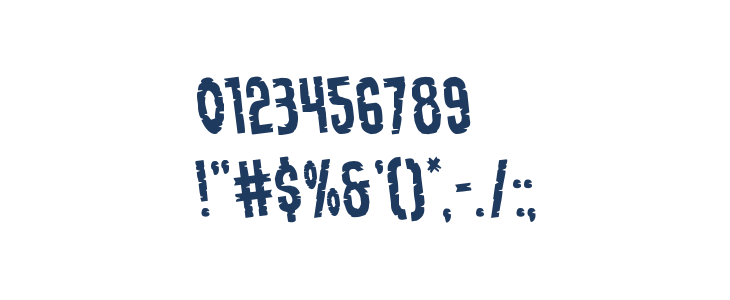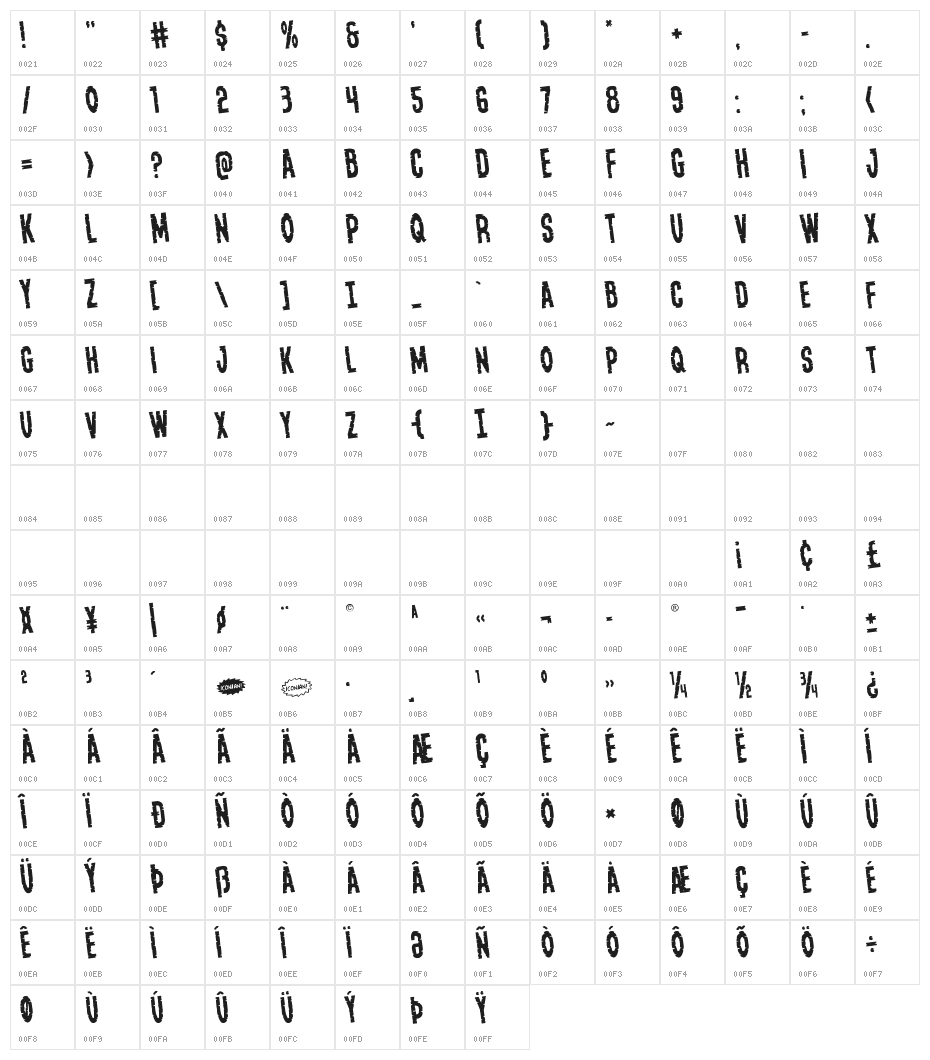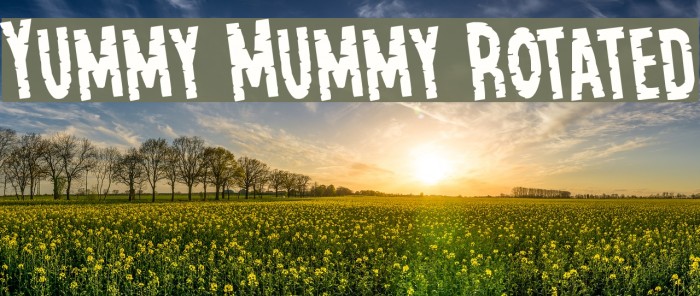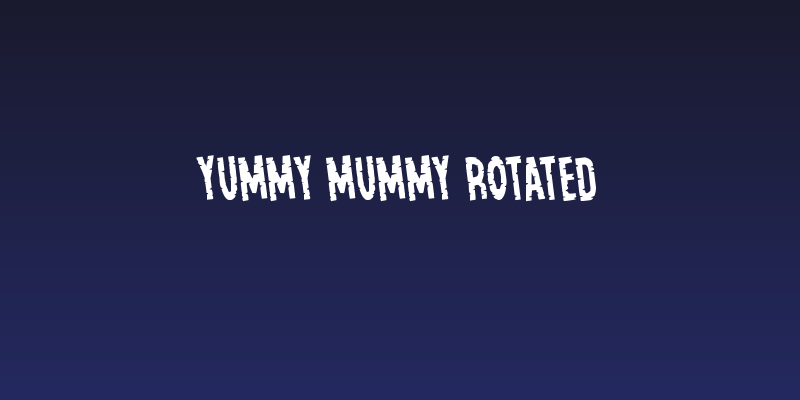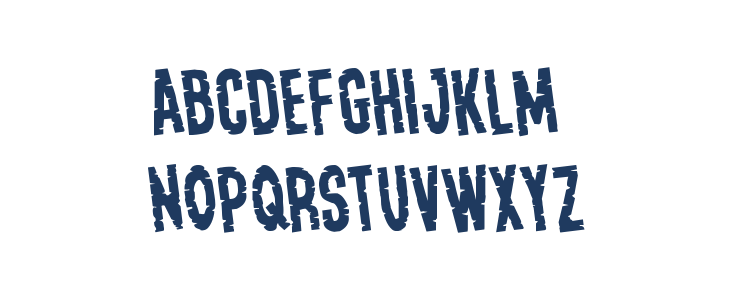
Yummy Mummy Rotated Font
Yummy Mummy Rotated Description
This font features a bold and rugged design with a distressed, textured appearance. The characters are slightly tilted, giving a dynamic and energetic feel. The uppercase and lowercase letters maintain a consistent style, with jagged edges and irregular strokes that create a sense of movement. The numbers and special characters follow the same aesthetic, making the font suitable for projects that require a bold and eye-catching look. The overall style is playful yet edgy, perfect for creative and unconventional designs.
| Proposed Projects | Ideal for posters, album covers, Halloween-themed designs, and edgy branding projects. |